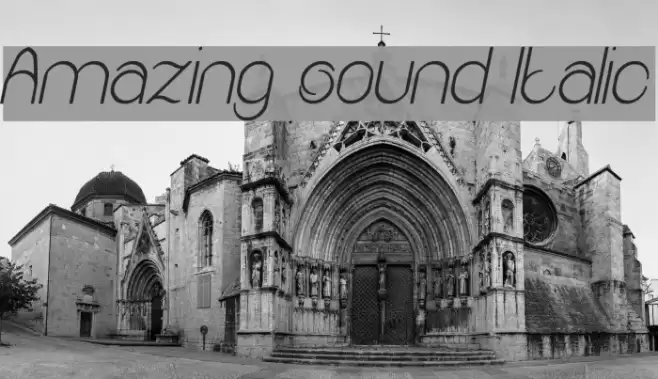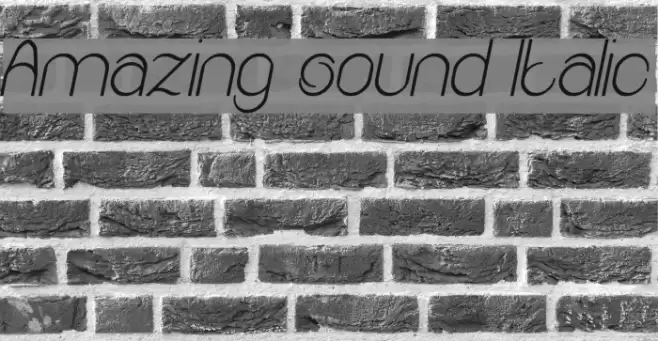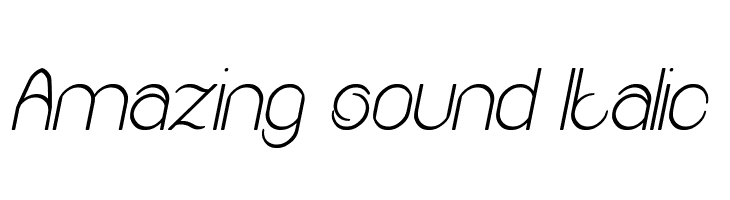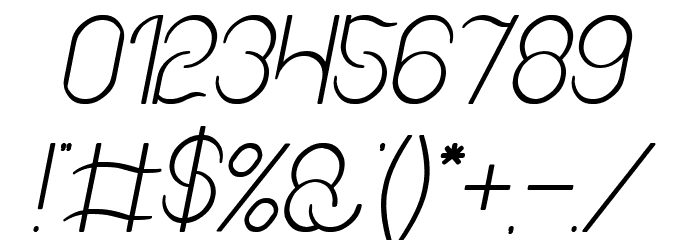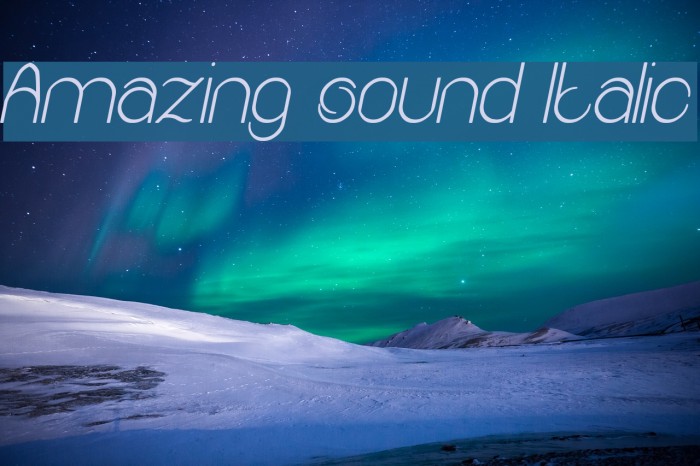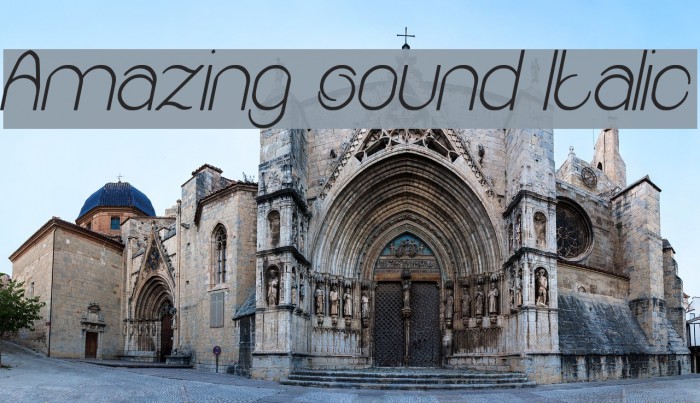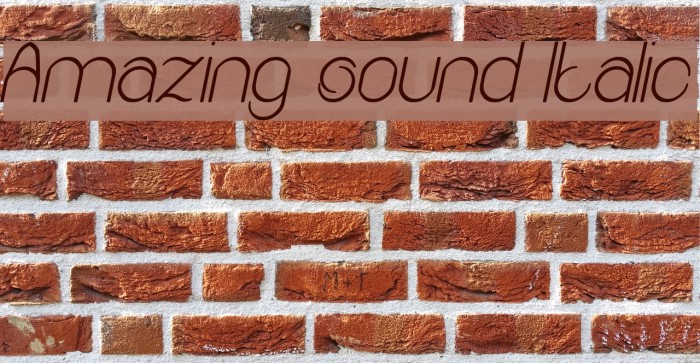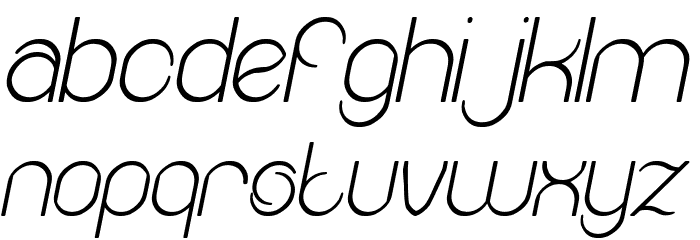
Amazing sound Italic Font
Amazing sound Italic Description
This font features a sleek, flowing design with a distinctly italicized style. The letters are elongated and slightly slanted, giving a sense of motion and elegance. The strokes are consistent in thickness, providing a uniform appearance across all characters. The uppercase letters maintain a graceful curve, while the lowercase letters exhibit a smooth, connected flow. Numbers and special characters are designed with the same fluidity, ensuring a cohesive look. This font is ideal for projects that require a touch of sophistication and modernity.
A sleek, italicized font with flowing, consistent strokes from Uncategorized fonts.
- Proposed Projects: Ideal for fashion branding, elegant invitations, modern logos, and stylish editorial designs.
- Use Case: Logos, Invitations, Editorials